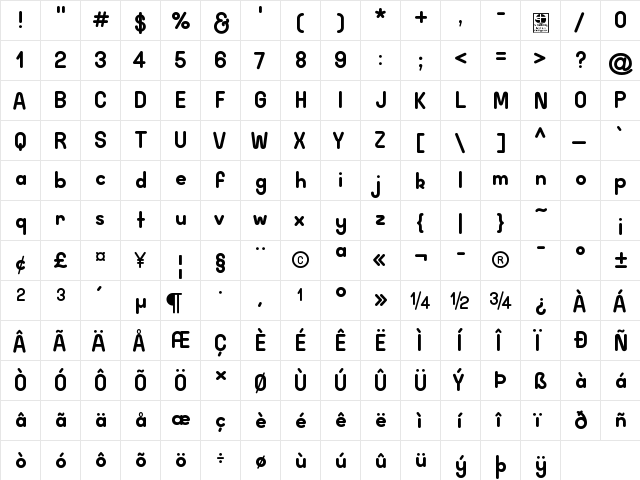
Wida Round Demo Bold Font Preview
Design Context for Wida Round Demo Typeface
Wida Round Demo uses gentle rounded endings to create a warm, inviting typographic personality — less corporate than geometric sans, more refined than playful display fonts. The heavy weight commands attention and anchors typographic hierarchies.
Well-suited to UI design, mobile interfaces, and any brand that wants approachability without sacrificing clarity.
Font Pairing: Pairs well with a rounded or humanist sans for body copy, maintaining the friendly tone without relying on Wida Round Demo to carry extended reading.
Pro Tip: Use Wida Round Demo for UI elements, app interfaces, and anywhere a friendly, approachable tone needs to be maintained without sacrificing clarity.